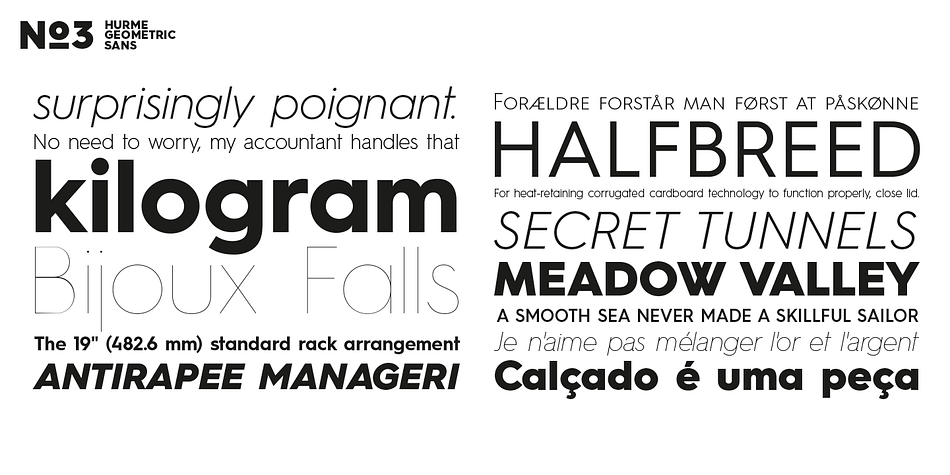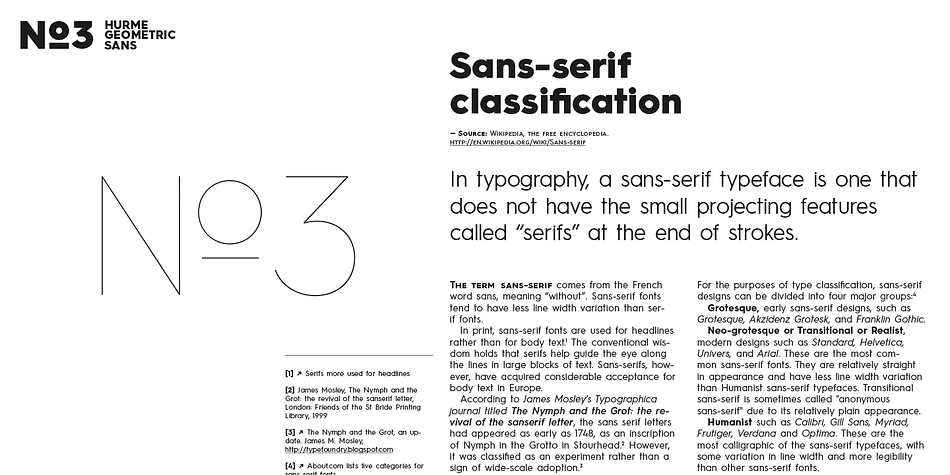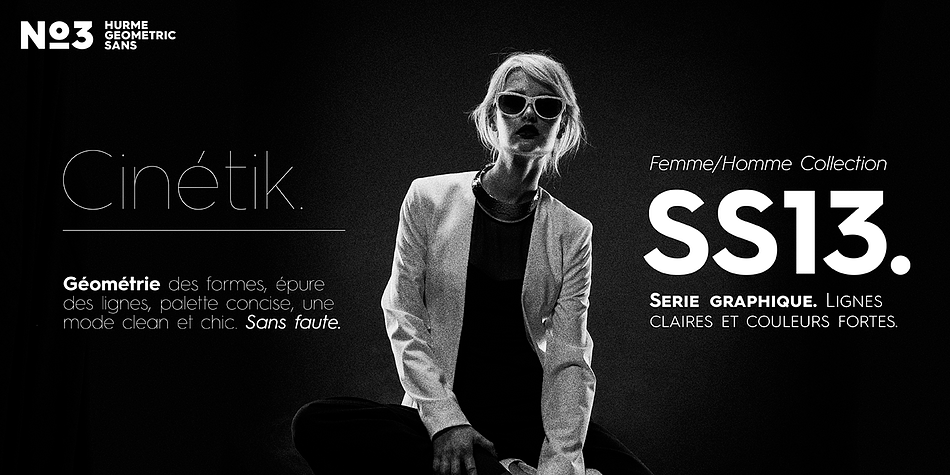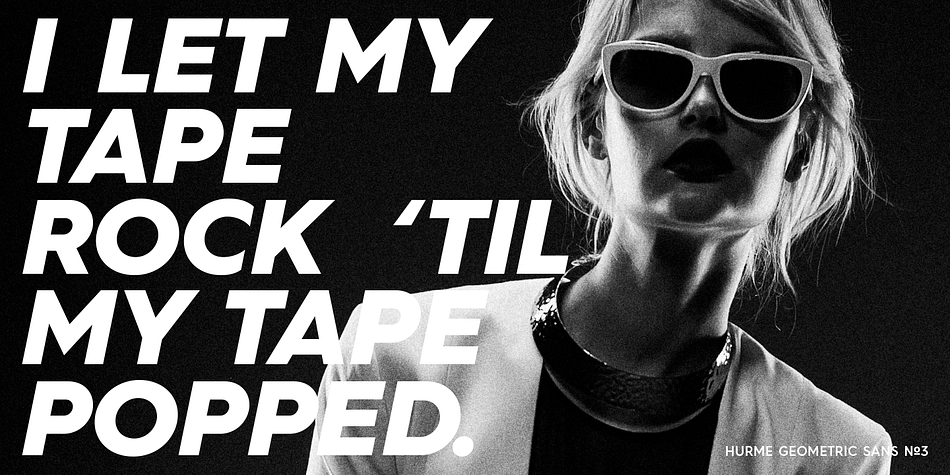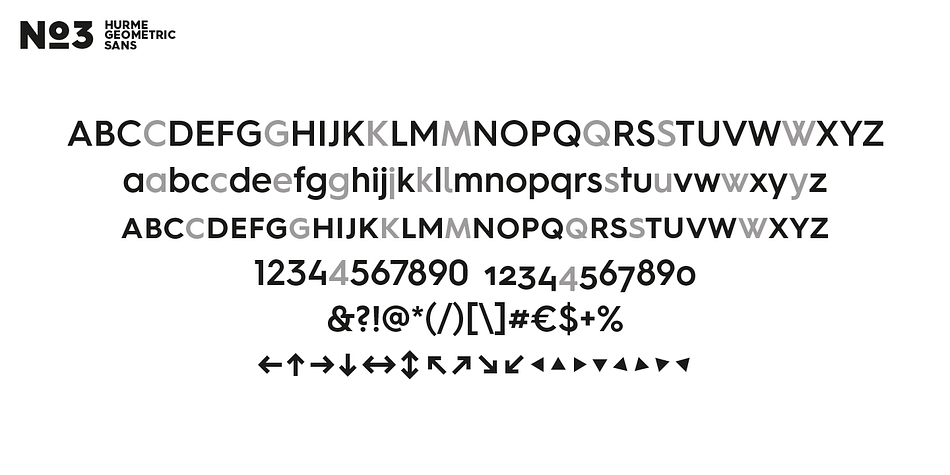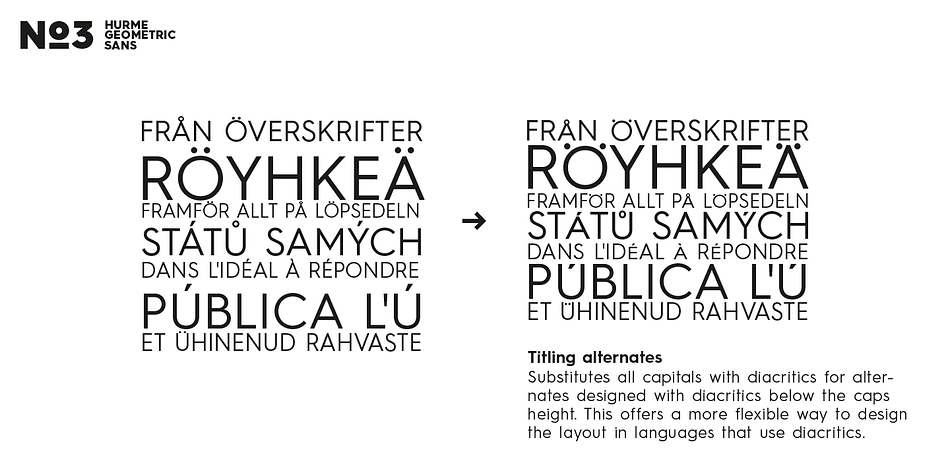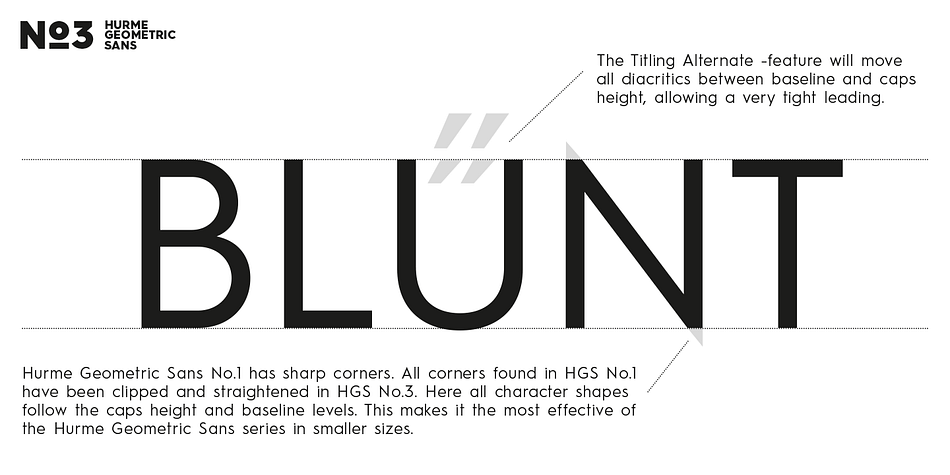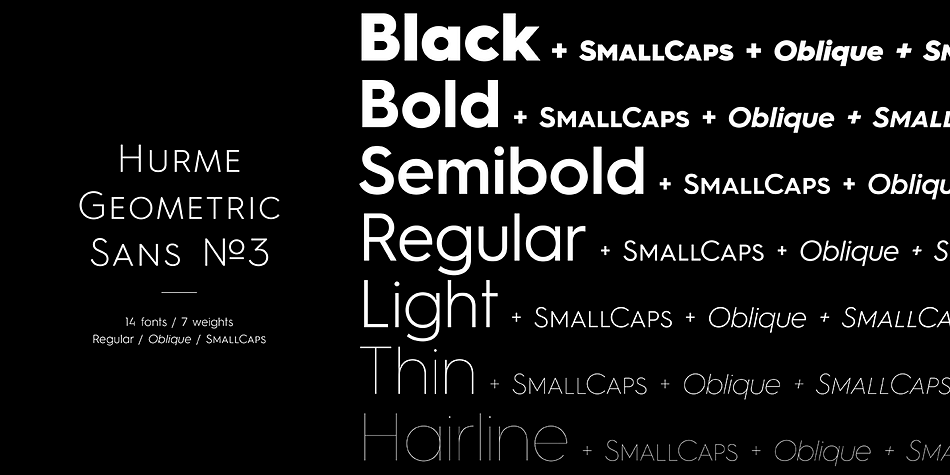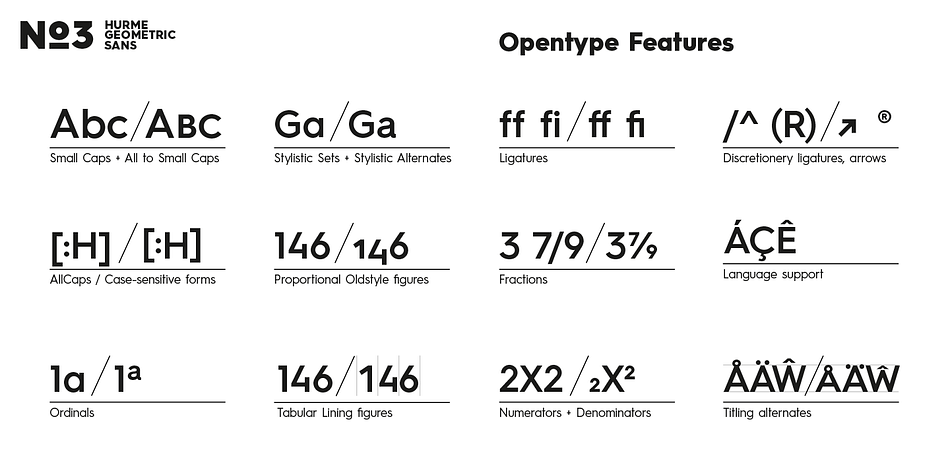
Hurme Geometric Sans 3 is a sans serif font family. This typeface has fourteen styles and was published by Hurme Design.
Hurme Geometric Sans No.3 includes seven weights with true Small Caps and obliques. Please see the specimen PDF for complete overview of the typeface and its features. Alternate characters and other Opentype features make for a versatile family that can be adjusted for specific needs.
Hurme Geometric Sans is a series of font families all with distinctive qualities and features but share the same basic construction and proportions. See also the other Hurme Geometric Sans families.